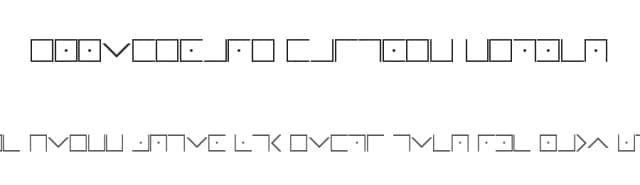
About Illuminati Dirigens Berlin Font
Font based on the 1776 Bavarian Illuminati Dirigens or Scottish Knight cipher found in the Secret State Archives Prussian Cultural Center in Berlin.
| Designer | Tom Hidell and Reinhard Markner |
Illuminati Dirigens Berlin Font is a versatile dingbats font that works for both headings and body text. Pair it with a contrasting sans-serif or serif font to add visual interest and a clear distinction between titles and body copy.